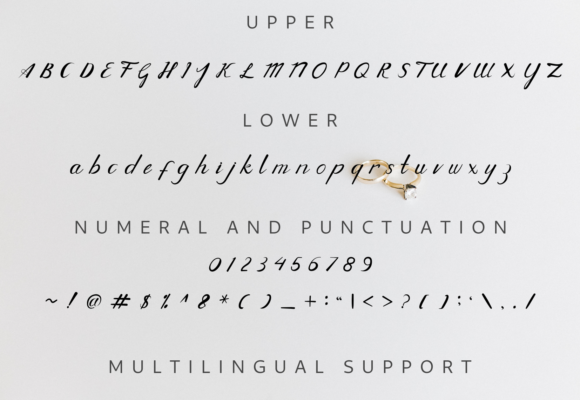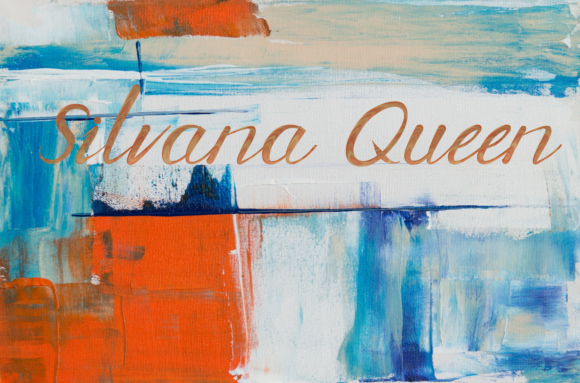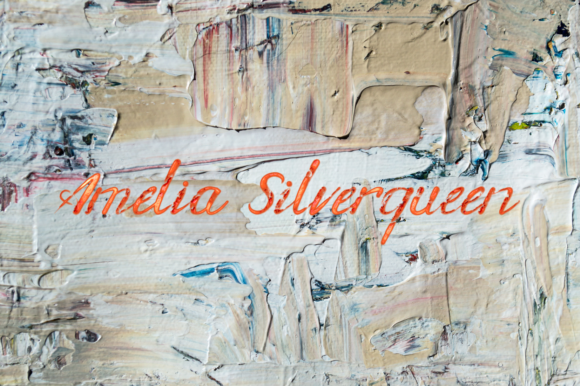
Bullgaria Font: Elevate Your Designs with Elegance
Bullgaria is a beautiful, handcrafted font that embodies the perfect blend of elegance and sophistication. This stunning typeface is designed to add a touch of refinement to your projects, making it an ideal choice for designers and crafters seeking to create visually appealing content. With its flowing, delicate, and well-balanced handwritten style, Bullgaria Font is sure to captivate your audience and leave a lasting impression.
The Characteristics of Bullgaria Font
Bullgaria Font boasts an elegant touch that sets it apart from other typefaces. Its flowing lines and delicate curves create a sense of movement and fluidity, making it perfect for designs that require a touch of sophistication. The font’s well-balanced structure ensures that it remains clear and legible, even at smaller sizes, making it suitable for a wide range of applications.
Why Choose Bullgaria Font?
There are several reasons why Bullgaria Font stands out from the crowd. Here are a few:
- Elegant and Refined: Bullgaria Font exudes elegance and refinement, making it perfect for designs that require a touch of sophistication.
- Versatile: This font is suitable for a wide range of projects, from wedding invitations and branding materials to packaging and digital content.
- Easy to Read: Bullgaria Font is designed to be clear and legible, ensuring that your message is conveyed effectively.
- Unique and Creative: With its flowing lines and delicate curves, Bullgaria Font adds a touch of creativity to your designs.
Bullgaria Font is an excellent choice for a wide range of projects, including:
- Wedding Invitations: Add a touch of elegance to your wedding invitations and save the dates with Bullgaria Font.
- Branding Materials: Use Bullgaria Font to create sophisticated branding materials, such as logos, business cards, and letterheads.
- Packaging: Elevate your packaging designs with Bullgaria Font, perfect for luxury products and gourmet foods.
- Digital Content: Use Bullgaria Font to create engaging digital content, such as blog posts, social media graphics, and email newsletters.
Tips for Using Bullgaria Font
Here are a few tips for using Bullgaria Font effectively:
- Pair with Other Fonts: Combine Bullgaria Font with other fonts to create a unique and visually appealing typography.
- Use it Sparingly: Use Bullgaria Font sparingly to create emphasis and draw attention to specific elements in your design.
Bullgaria Font is a stunning, handcrafted typeface that is sure to elevate your designs with its elegant and refined style. With its flowing lines, delicate curves, and well-balanced structure, this font is perfect for a wide range of projects. Whether you’re a designer or crafter, Bullgaria Font is an excellent choice for anyone seeking to add a touch of sophistication to their work.
In conclusion, Bullgaria Font is a beautiful and elegant typeface that is sure to take your designs to the next level. With its unique characteristics, versatility, and ease of use, this font is an excellent choice for designers and crafters seeking to create visually appealing content.